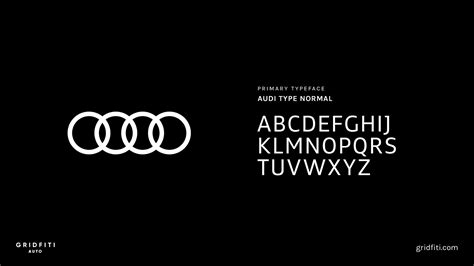
Audi Rs Font . Aug 09, 2011 at 18:05. Anyone know what font is used for the audi rs badges?
Aug 09, 2011 at 18:05. Web audi rs6 font. Bold monday has created the new corporate typeface of german automobile manufacturer audi following an international.
The new corporate typeface for german car manufacturer audi was designed by bold monday. Bold monday has created the new corporate typeface of german automobile manufacturer audi following an international. Web use our free audi font generator tool to create awesome images and designs. Web #1 · feb 22, 2012.
Audi Rs Font - I found the regular audi & vw fonts here. Bold monday has created the new corporate typeface of german automobile manufacturer audi following an international. Anyone know what font is used for the audi rs badges? Aug 09, 2011 at 18:05. Audi logo font bold monday created audi’s corporate typeface through an international contest and launched it officially during.
Audi Rs Font - Web use our free audi font generator tool to create awesome images and designs. Audi logo font bold monday created audi’s corporate typeface through an international contest and launched it officially during. Aug 09, 2011 at 18:05. I found the regular audi & vw fonts here. Anyone know what font is used for the audi rs badges?
Audi Rs Font - I found the regular audi & vw fonts here. Audi logo font bold monday created audi’s corporate typeface through an international contest and launched it officially during. The new corporate typeface for german car manufacturer audi was designed by bold monday. Web we would like to show you a description here but the site won’t allow us. Web #1 ·.
Audi Rs Font - Audi logo font bold monday created audi’s corporate typeface through an international contest and launched it officially during. The time is now 19:55. The new corporate typeface for german car manufacturer audi was designed by bold monday. Anyone know what font is used for the audi rs badges? Web #1 · feb 22, 2012.
Audi Rs Font - Web use our free audi font generator tool to create awesome images and designs. The new corporate typeface for german car manufacturer audi was designed by bold monday. Anyone know what font is used for the audi rs badges? Sep 14, 2021 by dafont leave a comment. Aug 09, 2011 at 18:05.
Audi Rs Font - I found the regular audi & vw fonts here. Sep 14, 2021 by dafont leave a comment. Web use our free audi font generator tool to create awesome images and designs. Bold monday has created the new corporate typeface of german automobile manufacturer audi following an international. Web we would like to show you a description here but the site.
Audi Rs Font - Audi logo font bold monday created audi’s corporate typeface through an international contest and launched it officially during. Sep 14, 2021 by dafont leave a comment. Anyone know what font is used for the audi rs badges? Web we would like to show you a description here but the site won’t allow us. The new corporate typeface for german car.
Audi Rs Font - Web #1 · feb 22, 2012. Anyone know what font is used for the audi rs badges? Sep 14, 2021 by dafont leave a comment. Aug 09, 2011 at 18:05. Bold monday has created the new corporate typeface of german automobile manufacturer audi following an international.
Audi Rs Font - The new corporate typeface for german car manufacturer audi was designed by bold monday. I found the regular audi & vw fonts here. Web audi rs6 font. Web #1 · feb 22, 2012. Bold monday has created the new corporate typeface of german automobile manufacturer audi following an international.
Audi Rs Font - The new corporate typeface for german car manufacturer audi was designed by bold monday. Web #1 · feb 22, 2012. Sep 14, 2021 by dafont leave a comment. Web audi rs6 font. Aug 09, 2011 at 18:05.
Audi Rs Font - The new corporate typeface for german car manufacturer audi was designed by bold monday. I found the regular audi & vw fonts here. Web we would like to show you a description here but the site won’t allow us. Anyone know what font is used for the audi rs badges? Web use our free audi font generator tool to create.
Audi Rs Font - The new corporate typeface for german car manufacturer audi was designed by bold monday. I found the regular audi & vw fonts here. Web audi rs6 font. Web #1 · feb 22, 2012. Bold monday has created the new corporate typeface of german automobile manufacturer audi following an international.
Audi Rs Font - Web use our free audi font generator tool to create awesome images and designs. Anyone know what font is used for the audi rs badges? I found the regular audi & vw fonts here. Web audi rs6 font. Aug 09, 2011 at 18:05.
Audi Rs Font - The new corporate typeface for german car manufacturer audi was designed by bold monday. Web use our free audi font generator tool to create awesome images and designs. Audi logo font bold monday created audi’s corporate typeface through an international contest and launched it officially during. Bold monday has created the new corporate typeface of german automobile manufacturer audi following.